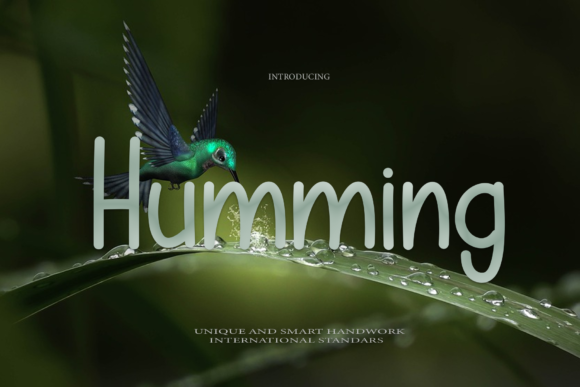
**Humming Font: The Heartbeat of Your Mobile App Designs**
In the realm of mobile app design, fonts are not mere visual elements; they are the heartbeat that brings life to your creations. Introducing Humming Font, a beautiful and captivating script font family that will elevate your mobile app designs to new heights of engagement and memorability.
Humming Font is a symphony of flowing strokes and graceful curves, meticulously crafted to exude a sense of casual elegance and effortless charm. Its organic and handwritten style lends a personal touch to your designs, creating an intimate connection with your users. Whether you're crafting a user interface, designing a marketing campaign, or creating eye-catching graphics, Humming Font will leave a lasting impression.
**Why Humming Font is the Perfect Choice for Your Mobile App Designs:**
1. **Designed for Mobile:** Humming Font is meticulously designed to shine on mobile screens. Its crisp and well-balanced letterforms ensure optimal readability, even on smaller devices. Say goodbye to pixelated or distorted fonts that compromise your design's integrity.
2. **Unleash Your Creativity:** Humming Font is a versatile chameleon, effortlessly adapting to diverse design styles and themes. From playful and whimsical to sleek and sophisticated, Humming Font seamlessly blends into your design vision, allowing your creativity to flourish without limitations.
3. **Create Emotional Connections:** Humming Font's natural and relatable style has an uncanny ability to forge emotional connections with users. Its friendly and inviting appearance makes your app feel more approachable and trustworthy, fostering a deeper engagement that keeps users coming back for more.
4. **Stand Out from the Crowd:** In a sea of generic and forgettable fonts, Humming Font is a beacon of originality. Its unique and distinctive character will make your mobile app stand out from the competition, leaving a lasting impression that users won't soon forget.
5. **Effortless Customization:** Humming Font comes with a range of weights and styles, giving you the flexibility to tailor it to your specific design needs. Whether you prefer a bold and assertive look or a delicate and understated feel, Humming Font has you covered.
Humming Font is more than just a font; it's a creative force that will breathe life into your mobile app designs. Its versatility, emotional appeal, and endless customization possibilities make it the perfect choice for designers seeking to create truly exceptional mobile experiences.